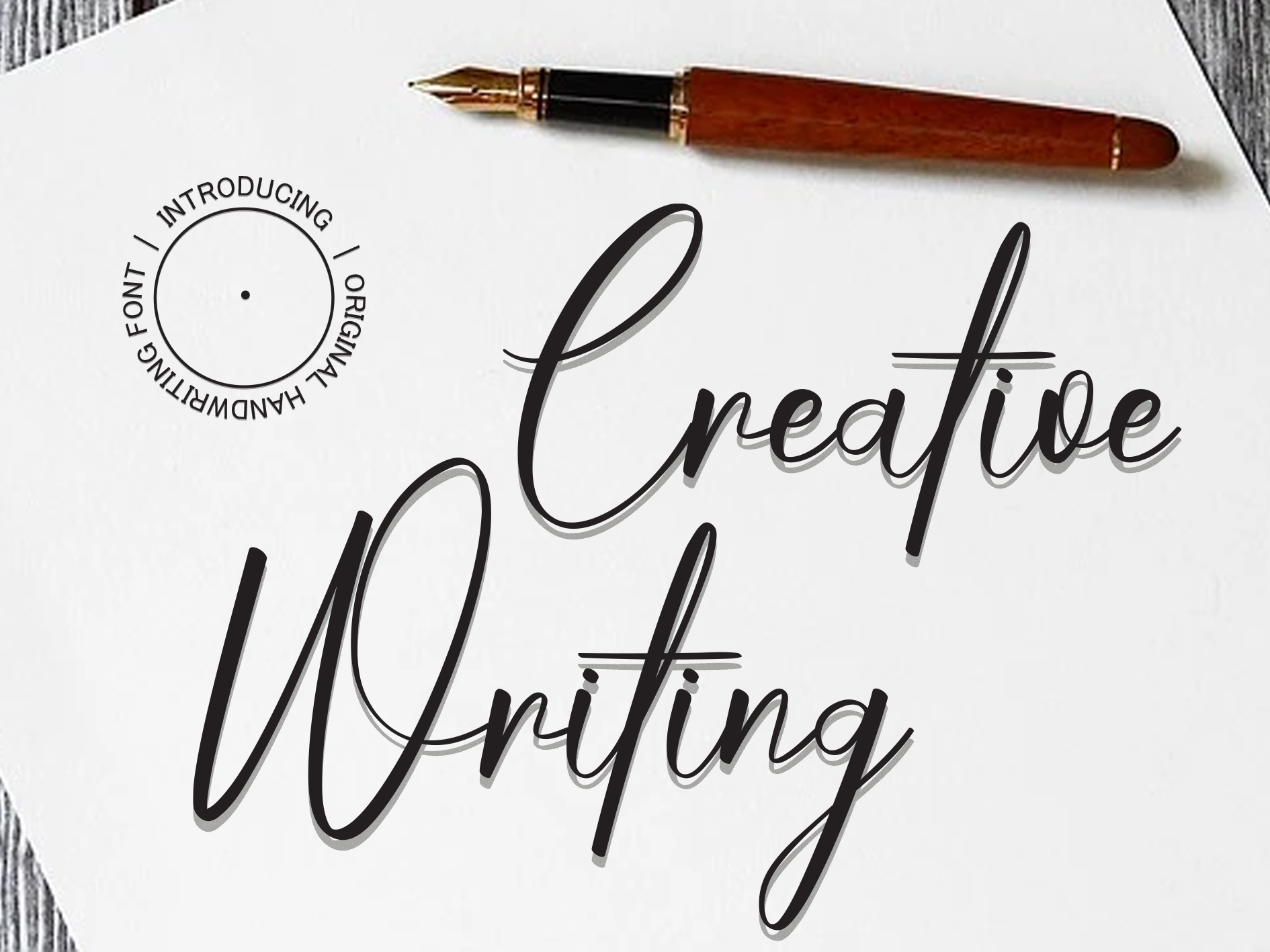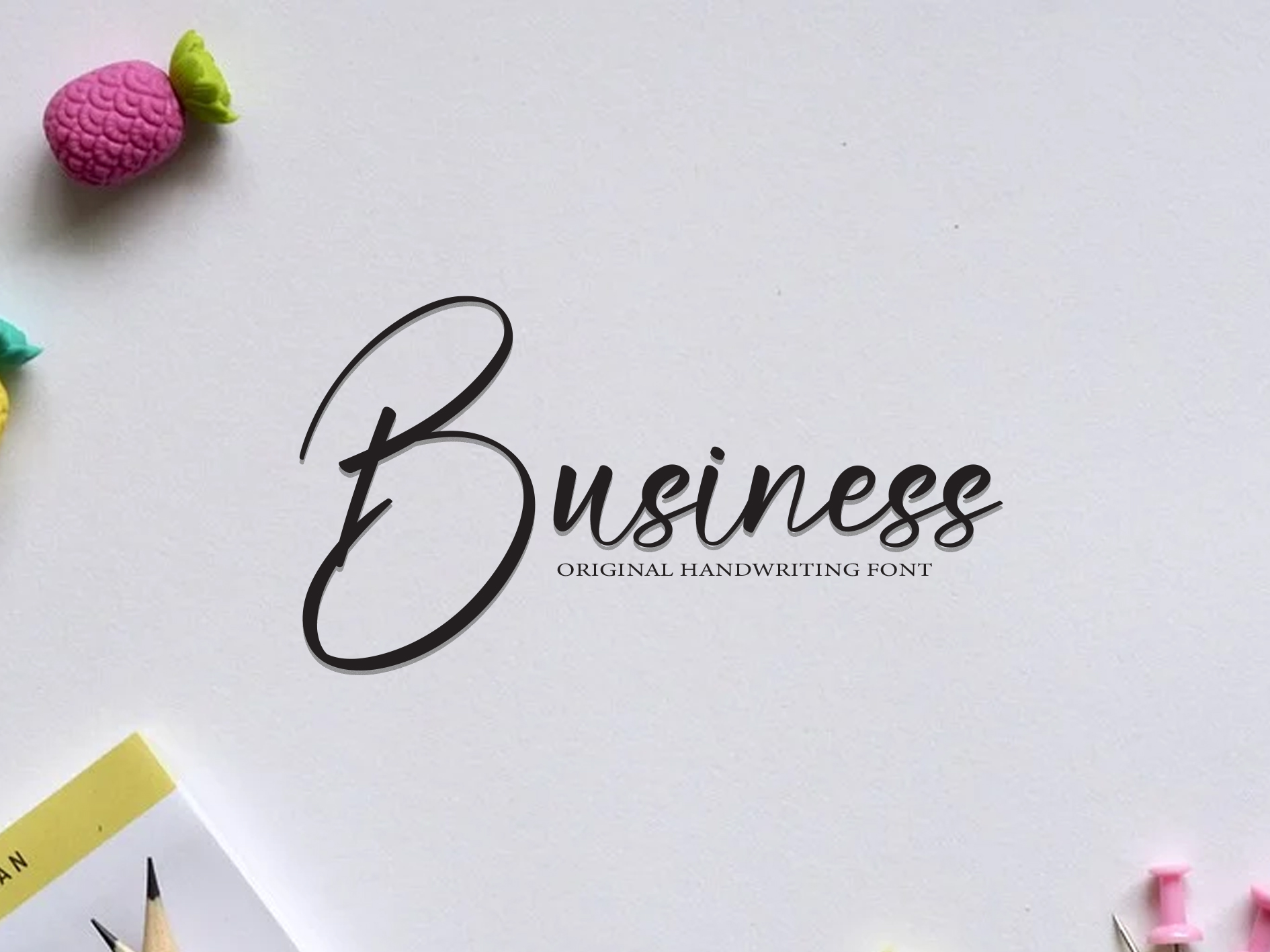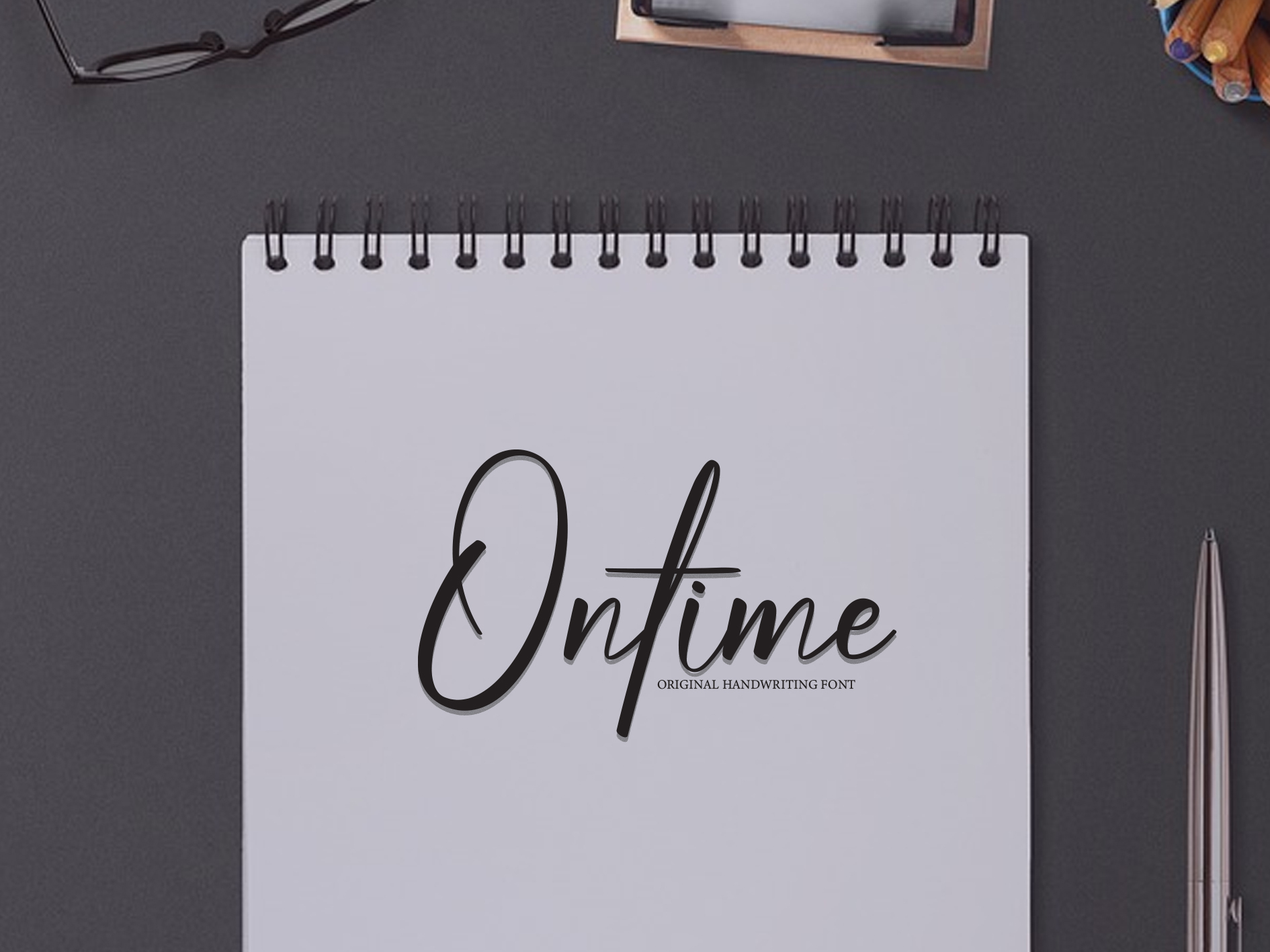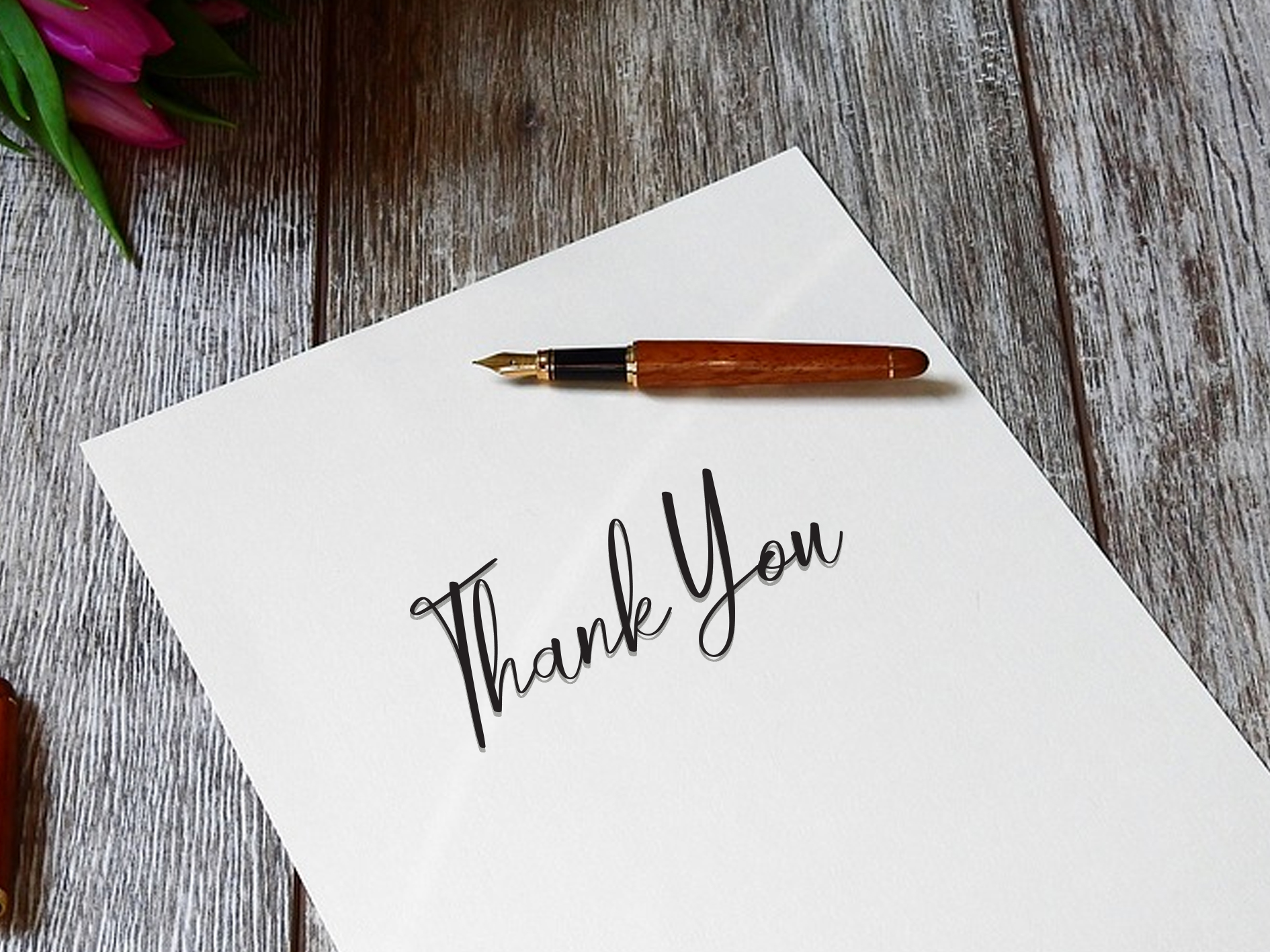
Creative Writing Script Font
This is a delicate handwritten font that is carefully crafted to produce cool and unique designs. This font can be used to write letters, invitations, food products and more.
This is a beautiful and unique handwritten font, with grooves crafted to produce beautiful lettering for use in a wide variety of products as desired. This product link; https://www.creativefabrica.com/de/product/creative-writing/ref/1679118/